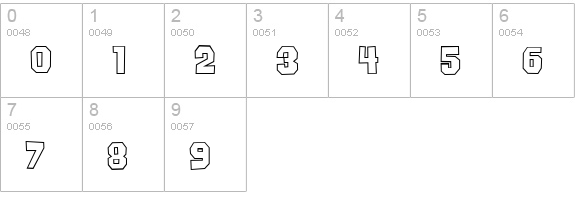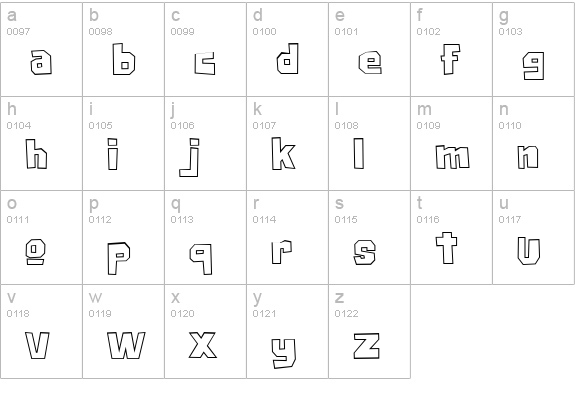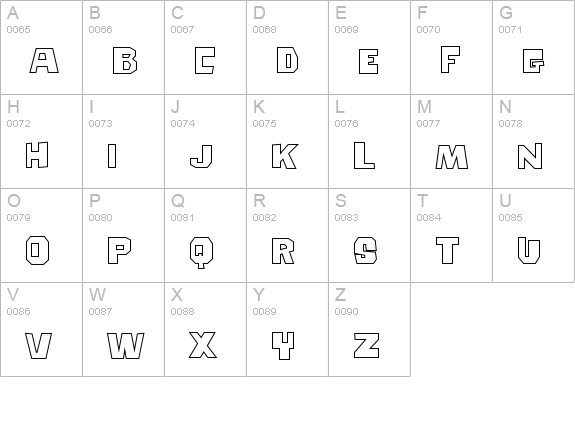
Big Chump BTN Outline Font Details
Big Chump BTN Outline is a bold and eye-catching font that demands attention with its unique outline style. Perfect for making a statement or adding a touch of playfulness to your designs, this font exudes a fun and energetic vibe. Whether you're creating posters, logos, or social media graphics, Big Chump BTN Outline is sure to make a big impact. And the best part? Big Chump BTN Outline is completely free to download at FontsMarket.com. So go ahead and add this dynamic font to your collection today and let your creativity shine!